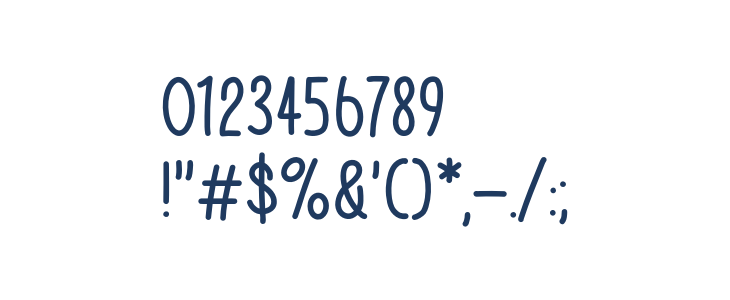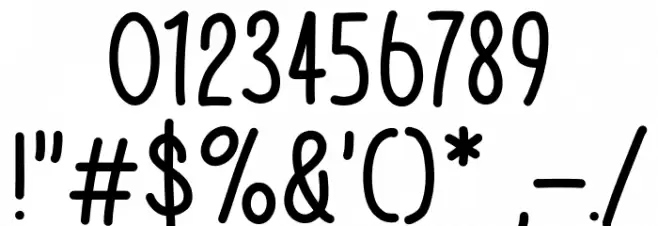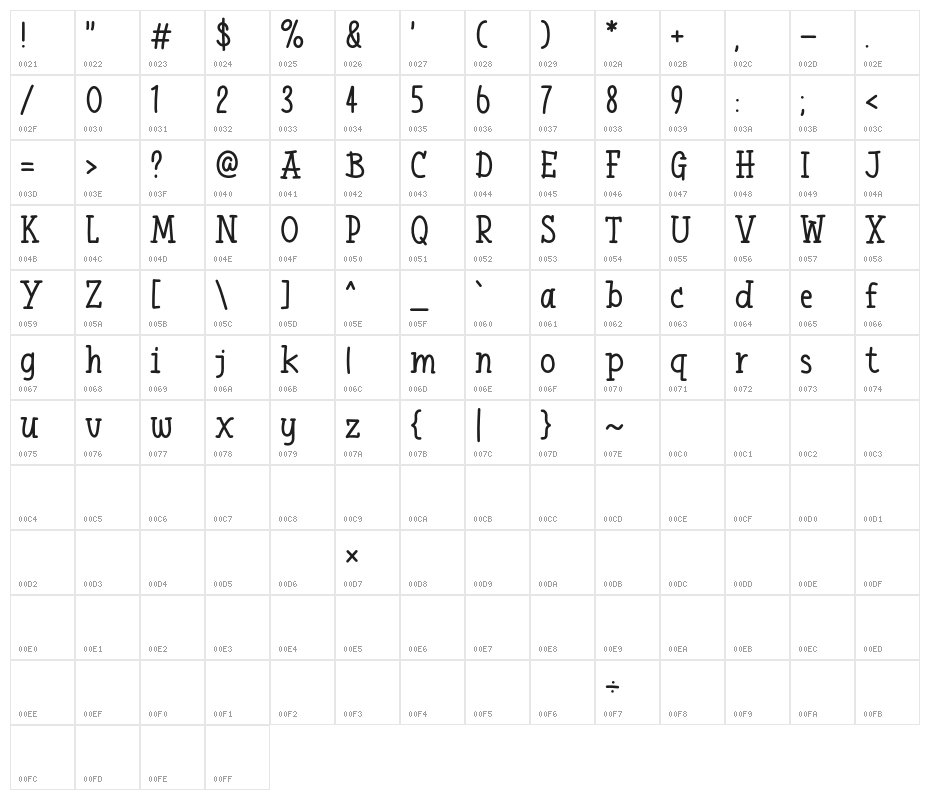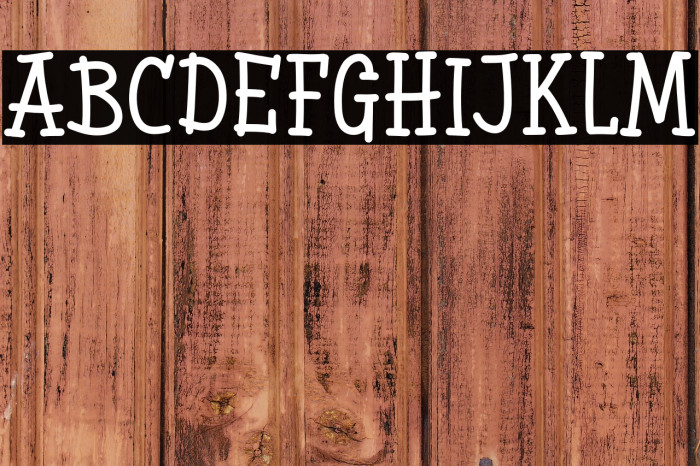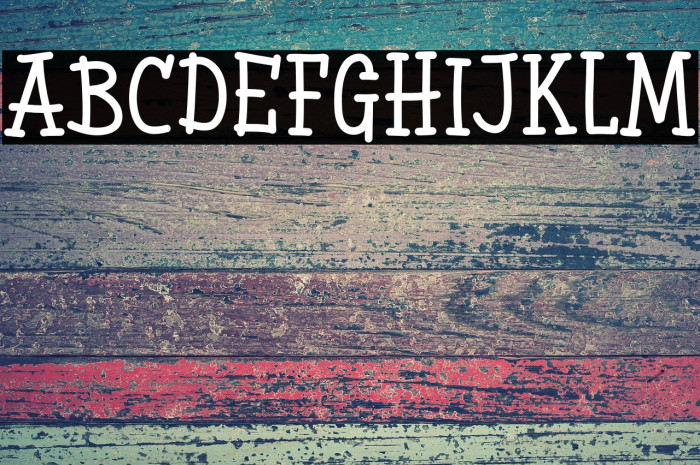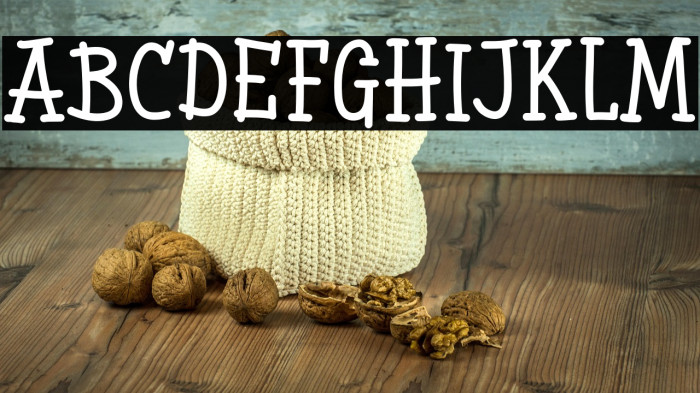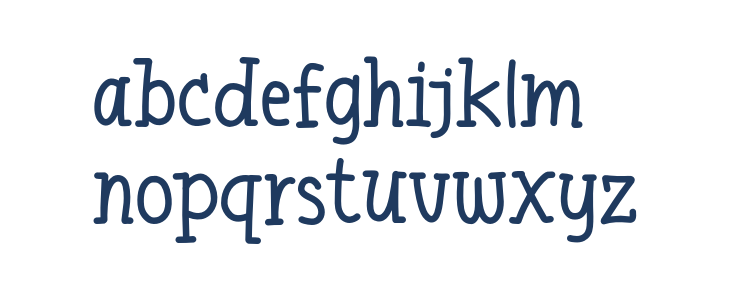
Catbrother Font
Catbrother Description
This font features a playful and whimsical style, characterized by its handwritten appearance. The letters are slightly irregular, adding a casual and friendly feel. The uppercase letters are bold and prominent, while the lowercase letters maintain a consistent flow with rounded edges. Numbers and special characters follow the same playful design, making the font versatile for various creative projects. The overall look is approachable and informal, suitable for designs that aim to convey warmth and personality.
| Overall Style | Casual and Playful |
| Proposed Projects | Ideal for children's books, greeting cards, playful branding, and informal invitations. |